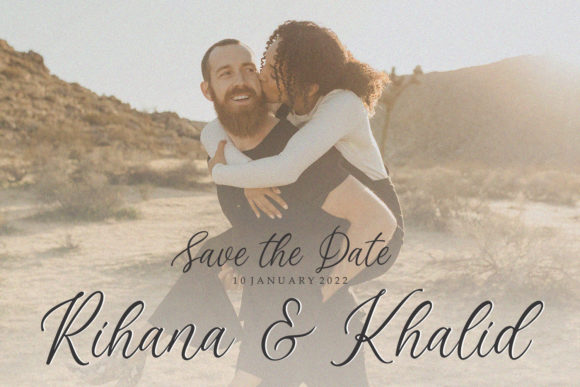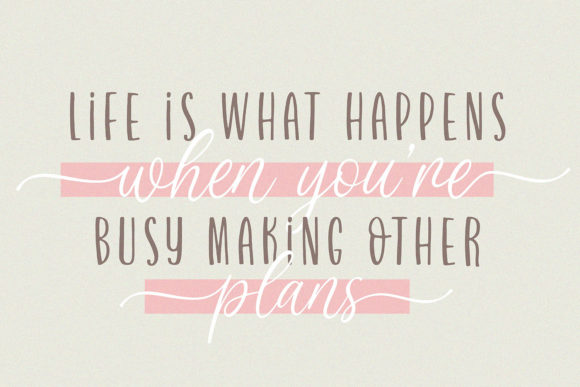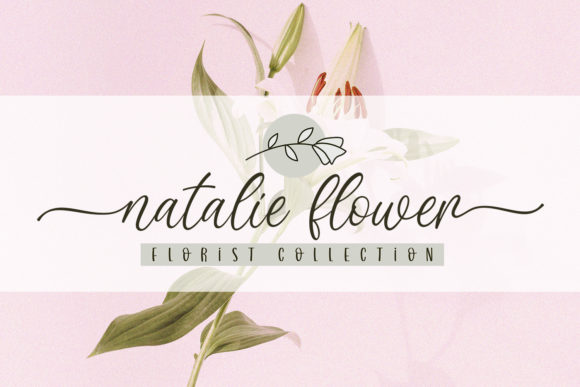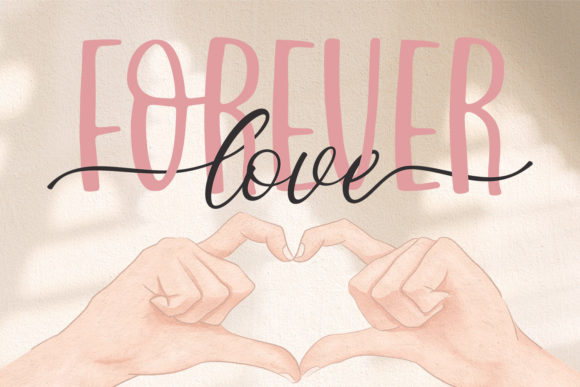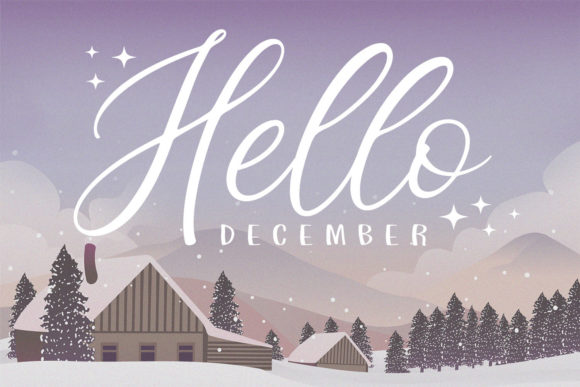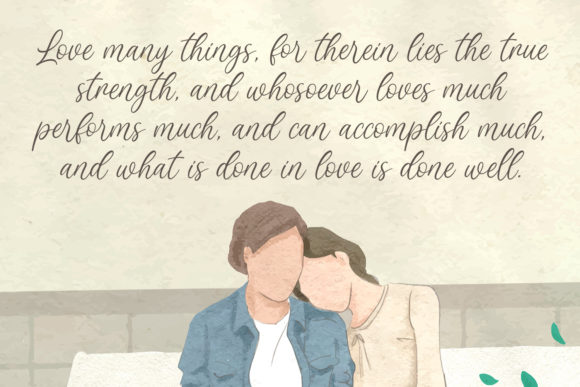
Discover the Whimsy of Fairland Duo Font
There’s something magical about stumbling upon the perfect font for a project. You’re pouring your heart and soul into a design, and then, like a breath of fresh air, you find the perfect match. For many designers, that perfect font is Fairland Duo Font – a charming duo-styled handwritten and sans serif font that’s equal parts delicate and eye-catching.
As a versatile font, Fairland Duo Font is designed to elevate your designs, whether it’s a beautiful wedding invitation, a captivating blog post, or a whimsical logo. With its PUA encoding, you’ll have access to all the glyphs and swashes you need to bring your creative vision to life. Whether you’re a seasoned designer or just starting out, Fairland Duo Font is a valuable addition to your toolkit.
Fairland Duo Font Key Features
- Font Family: Fairland Duo, a unique and elegant script font designed to convey sophistication and elegance.
- Unique Characteristics: Features a distinctive, hand-drawn feel with subtle flourishes and swashes, adding a touch of personality to any design.
Designer Review: Fairland Duo Font
Overall, I think the Fairland Duo Font has some great qualities that make it a solid choice for certain projects. ✨ The font’s duet of script and sans-serif styles works well together, and the subtle connections between the two are nicely executed. ✨ The font’s modern feel is also a major plus, as it lends itself well to contemporary designs.
One of the things that I think Fairland Duo does particularly well is its versatility. ✨ The font is suitable for a wide range of applications, from logos and branding to body text and even signage. Additionally, the font is highly legible, making it a great choice for longer passages of text.
- ⚠️ Limited character set: While the font is highly legible, the character set is somewhat limited, which may make it less suitable for languages that require a wider range of characters.
- ⚠️ Not ideal for small text: While the font is highly legible, it may not be the best choice for small text sizes, as the connection between the script and sans-serif styles can become somewhat muddled.
Overall, I think the Fairland Duo Font is a solid choice for designers looking for a modern, versatile font that can handle a wide range of applications. However, it may not be the best choice for certain projects that require a wider range of characters or extremely small text sizes.
Fairland Duo Font is ideal for:
- Business cards and branding materials
- Book covers and publishing materials
Tips: Use Fairland Duo Font to add a touch of sophistication and elegance to